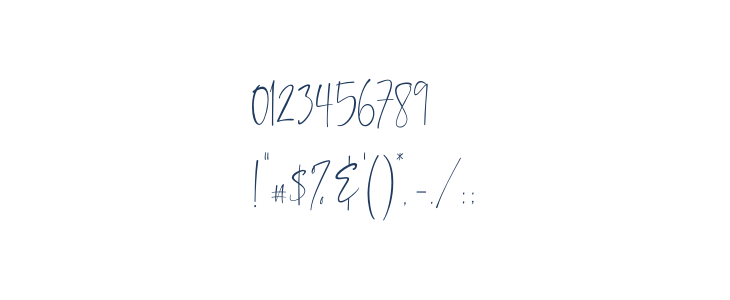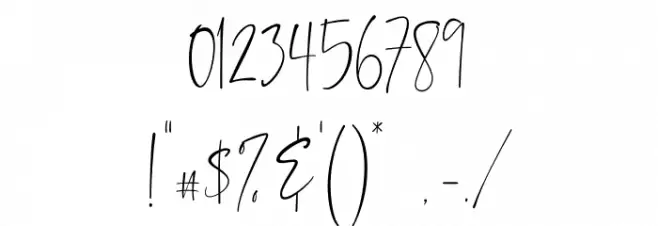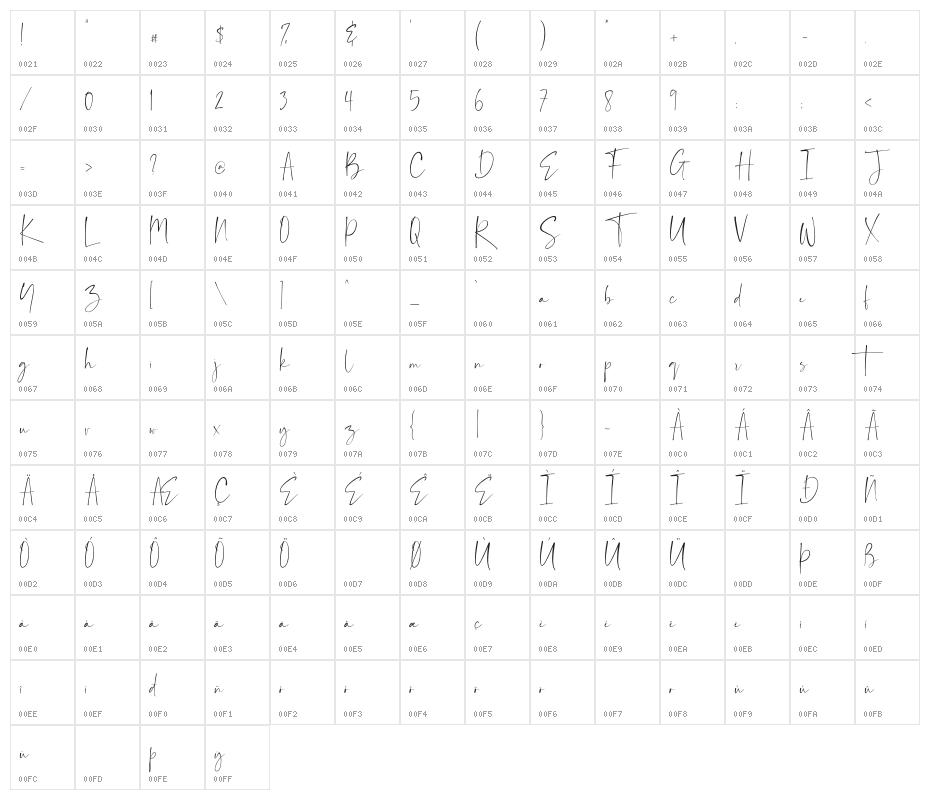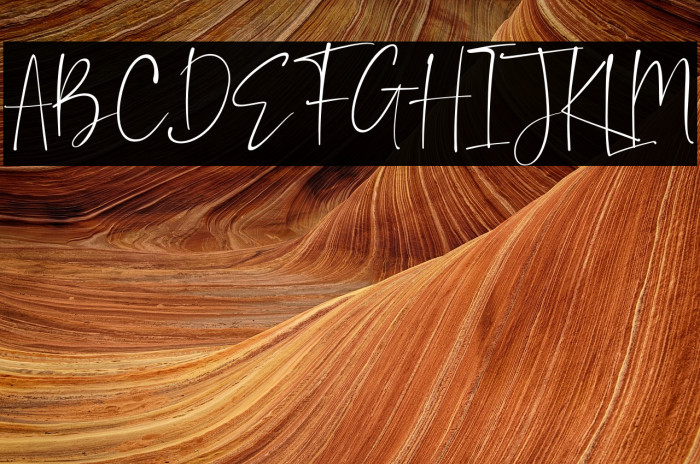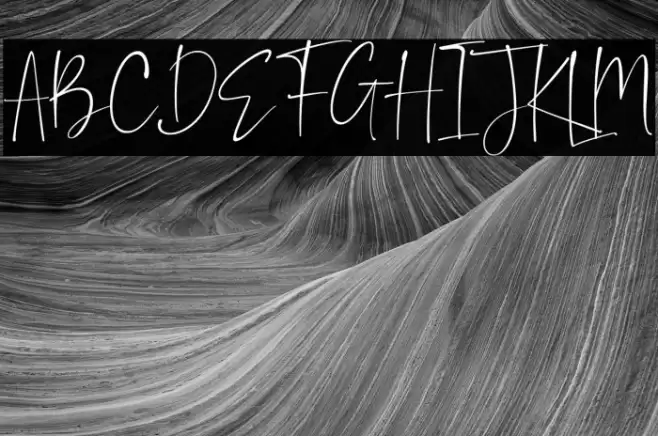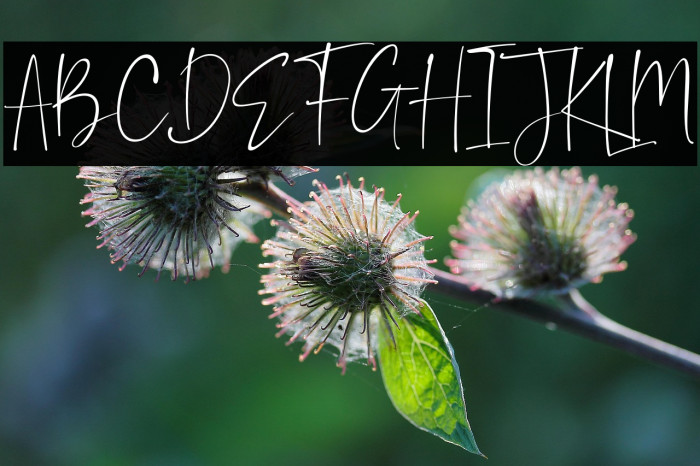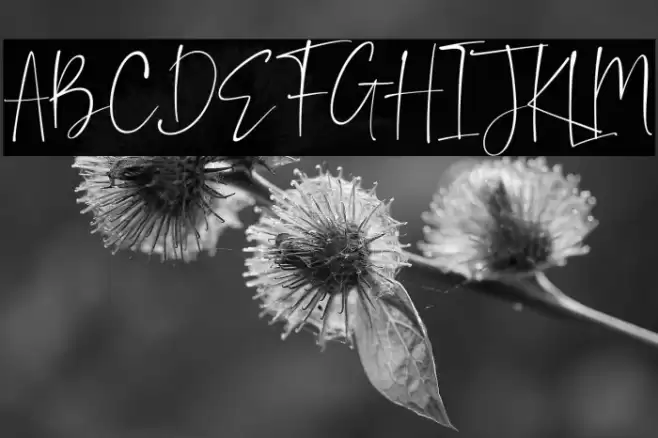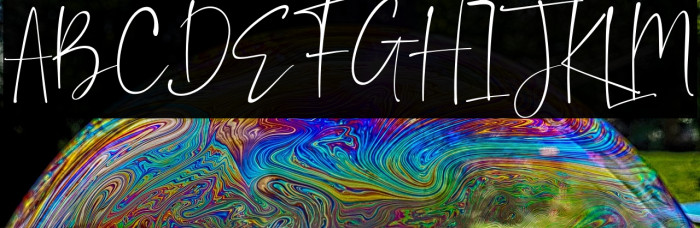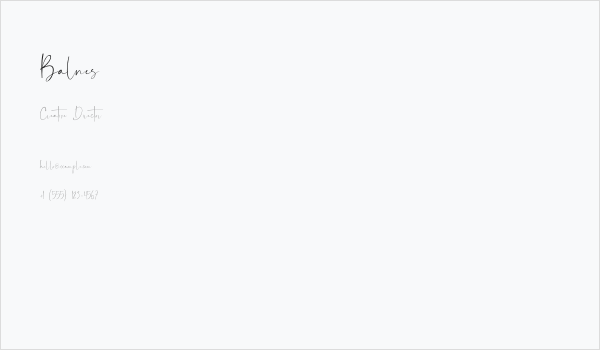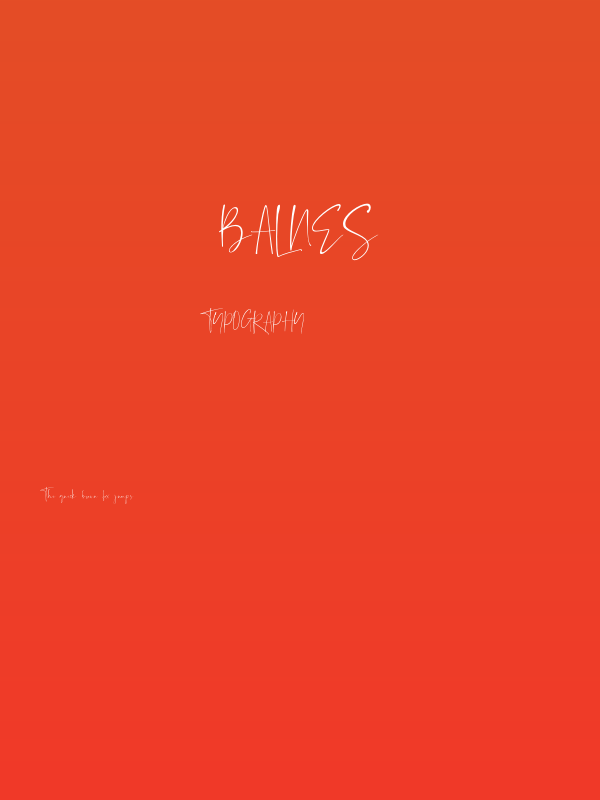
Balnes Font
Balnes Description
This font features a unique, handwritten style with a playful and artistic flair. The uppercase letters are tall and slender, with a whimsical touch that adds character to each letterform. The lowercase letters maintain a consistent flow, enhancing the font's organic and casual appearance. Numbers and special characters are designed to match the overall aesthetic, offering a cohesive look across all elements. The strokes vary in thickness, providing a dynamic and lively feel. This font is perfect for projects that require a personal and creative touch, such as invitations, greeting cards, and artistic branding.